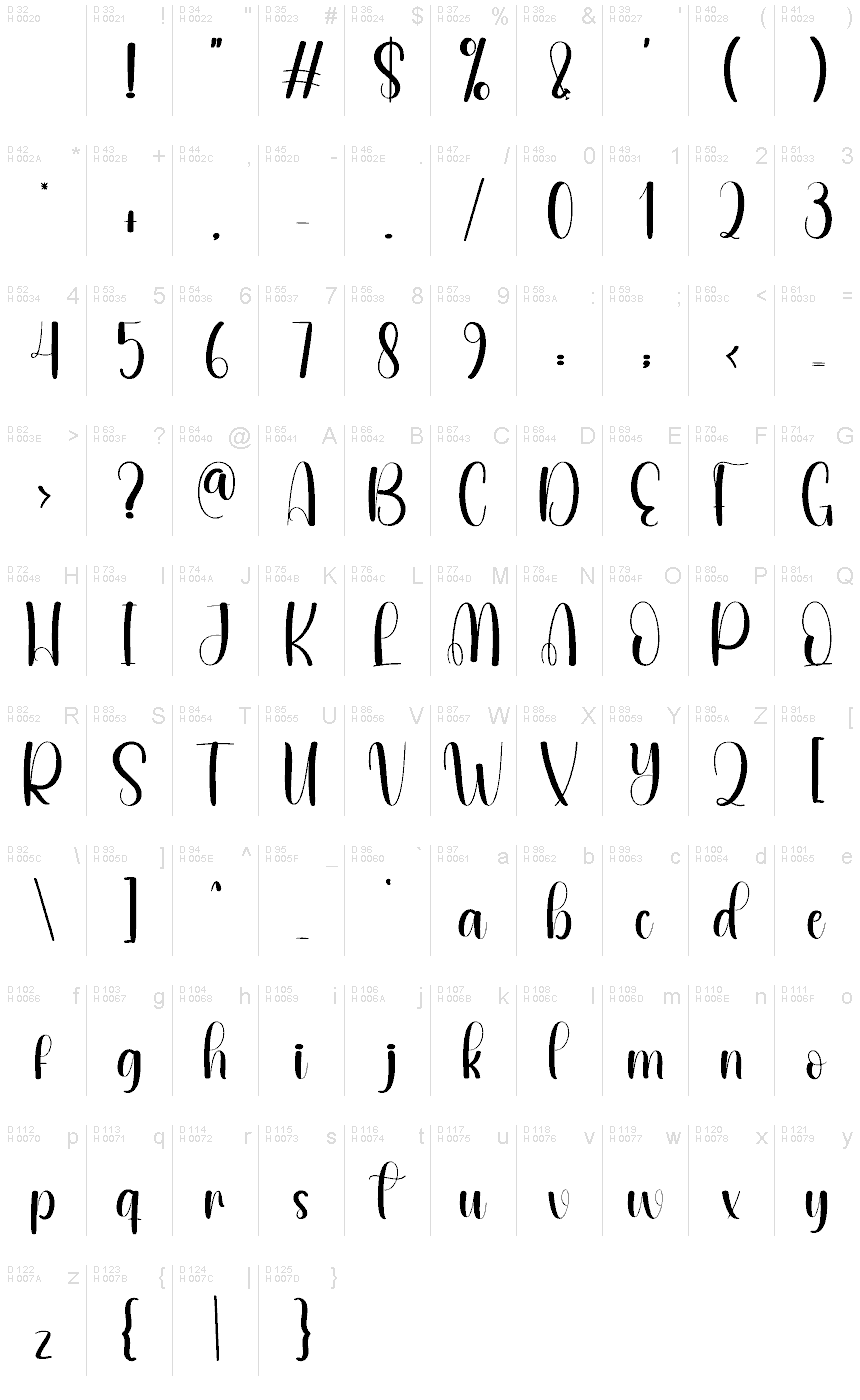
Competence
Competence font designed by Andi Moz is an elegant handwritten font characterized with decorative flourishes that accent some characters for a lavish look whether they are used for display or part of body text. This visual gives each word exceptional charm with all its letters and special characters that perfectly suit your modern projects as well as vintage-inspired designs.
Share a beautifully flowing, artistic flair typography with logotypes, packaging and printed/ digital ad materials or use it for postcards, invitation cards (wedding, graduation), and personal diaries. The condensed width font can be also added to posters and greeting cards as an impressive endnote.